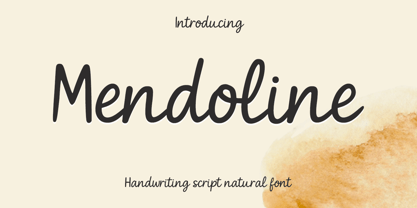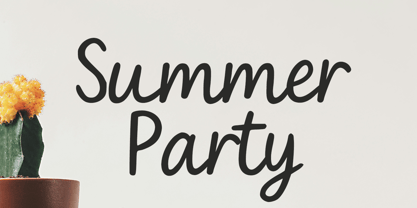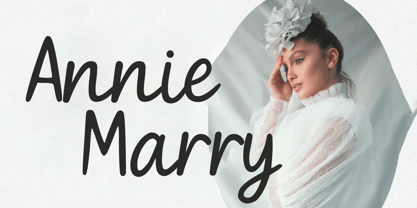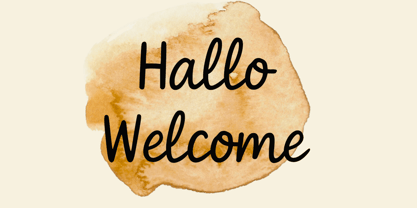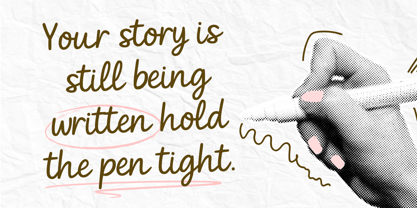
Mendoline
by Cocodesign
The Mendoline Font Family was designed by Muhammad Zaini and published by Cocodesign. Mendoline contains 1 styles.
Mendoline is a beautifully crafted handwritten script font that brings a natural, organic touch to your designs. With its smooth flow and elegant curves, this font mirrors genuine handwriting, making it perfect for a wide range of creative projects. Whether you're designing logos, invitations, branding materials, or social media content, Mendoline adds a stylish, unique flair to any design.